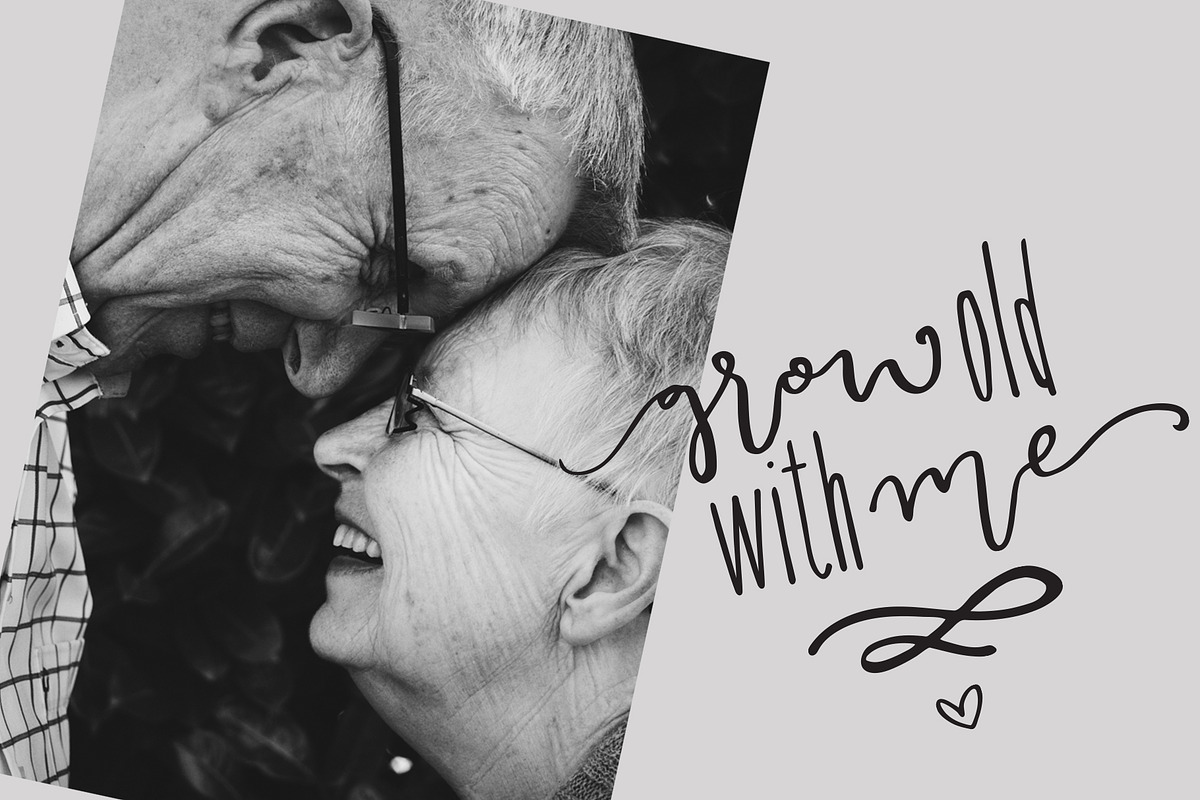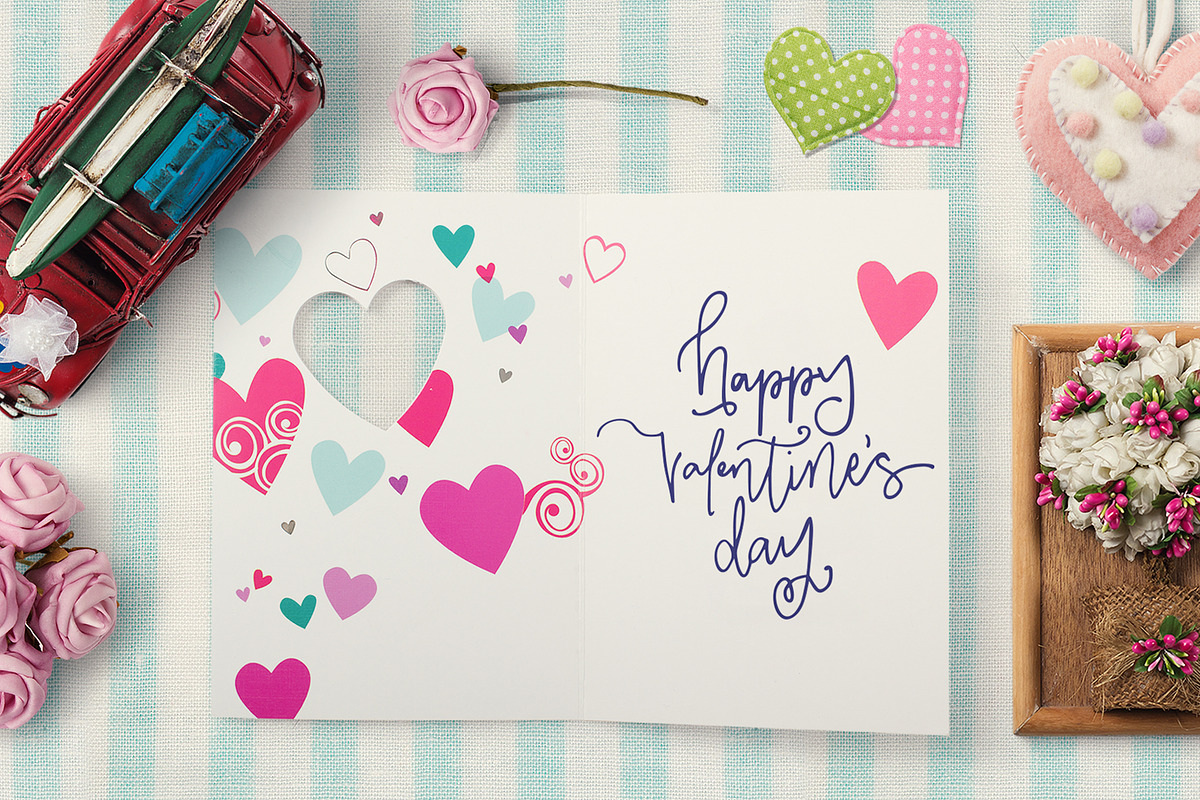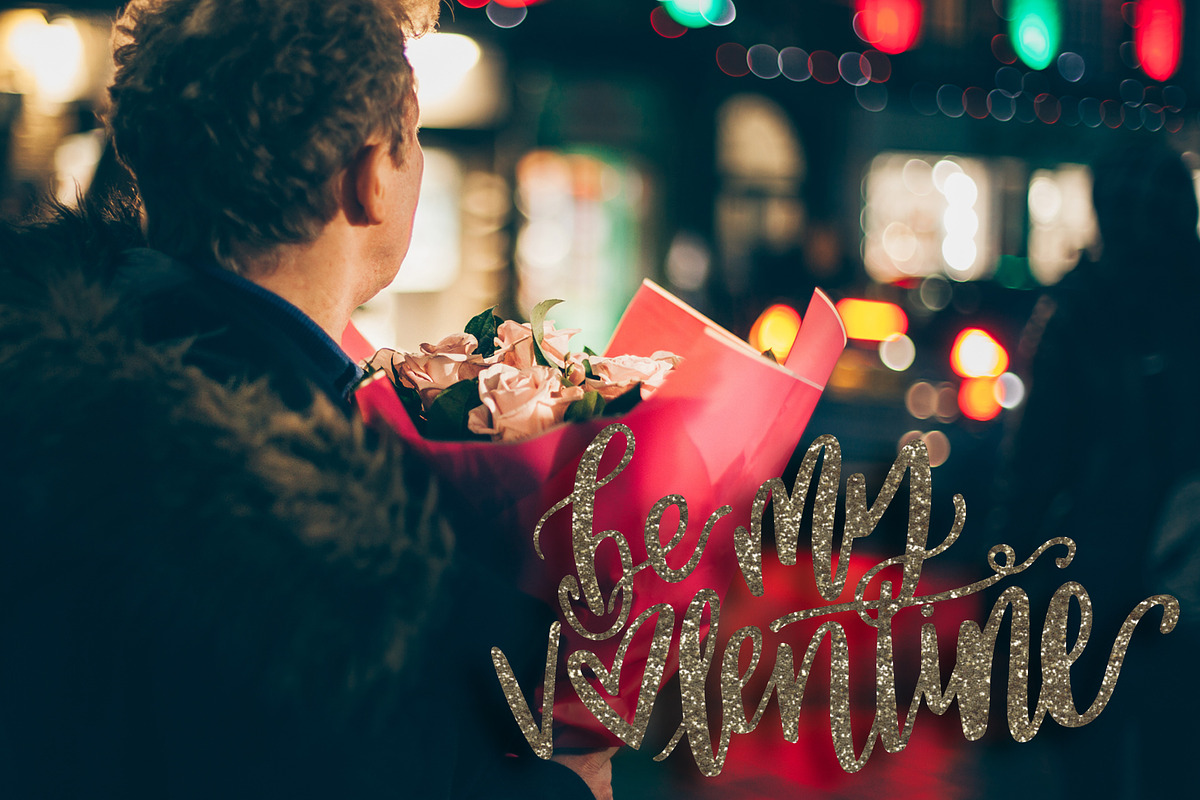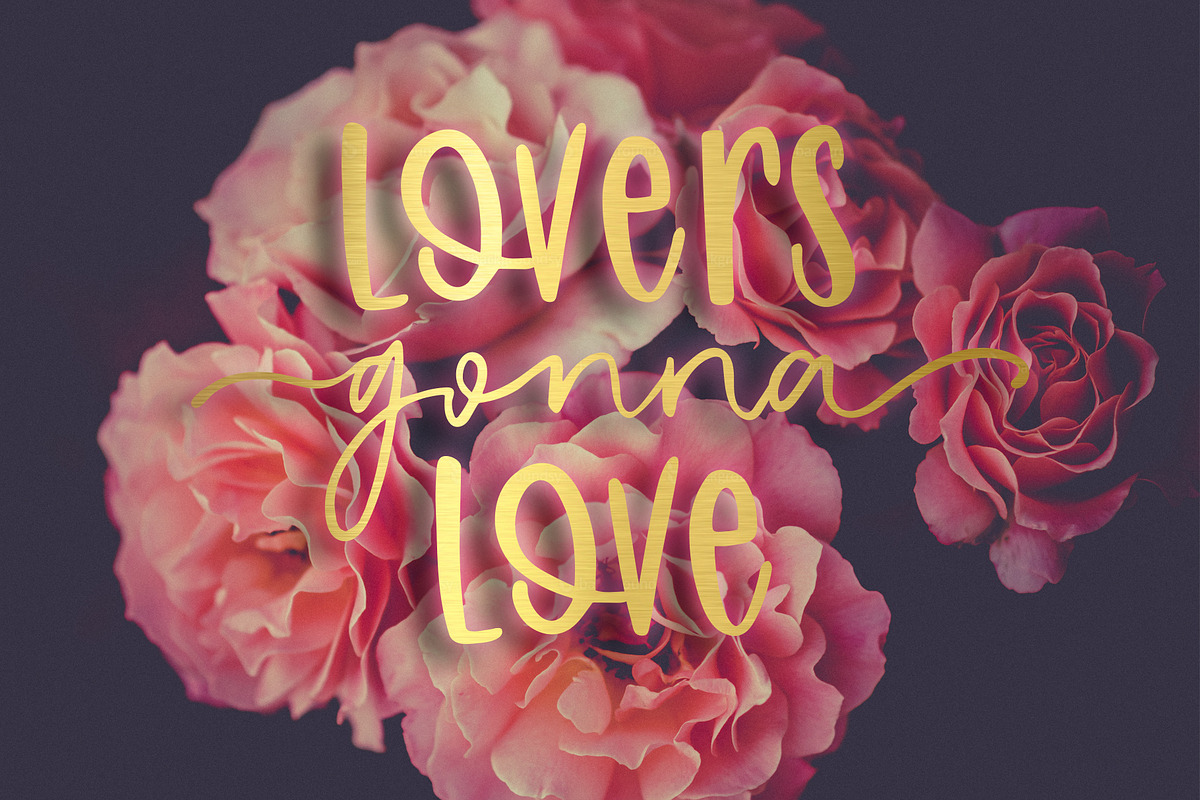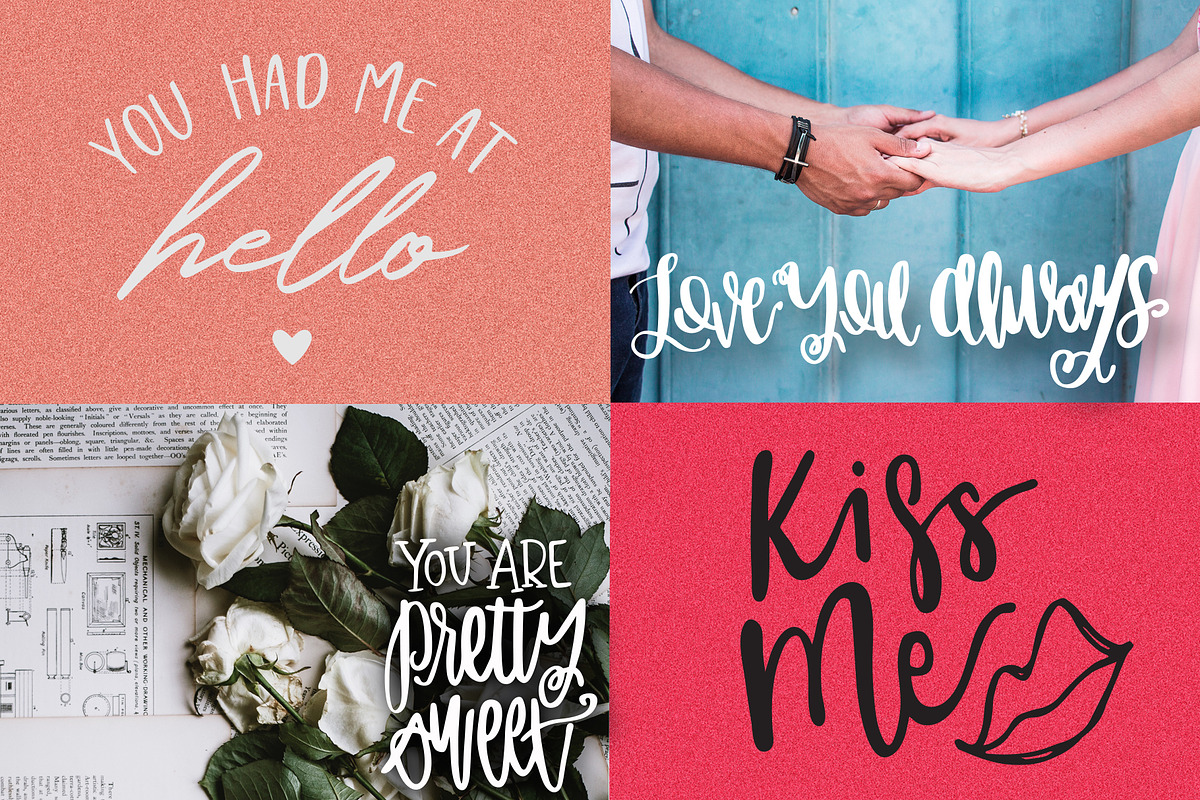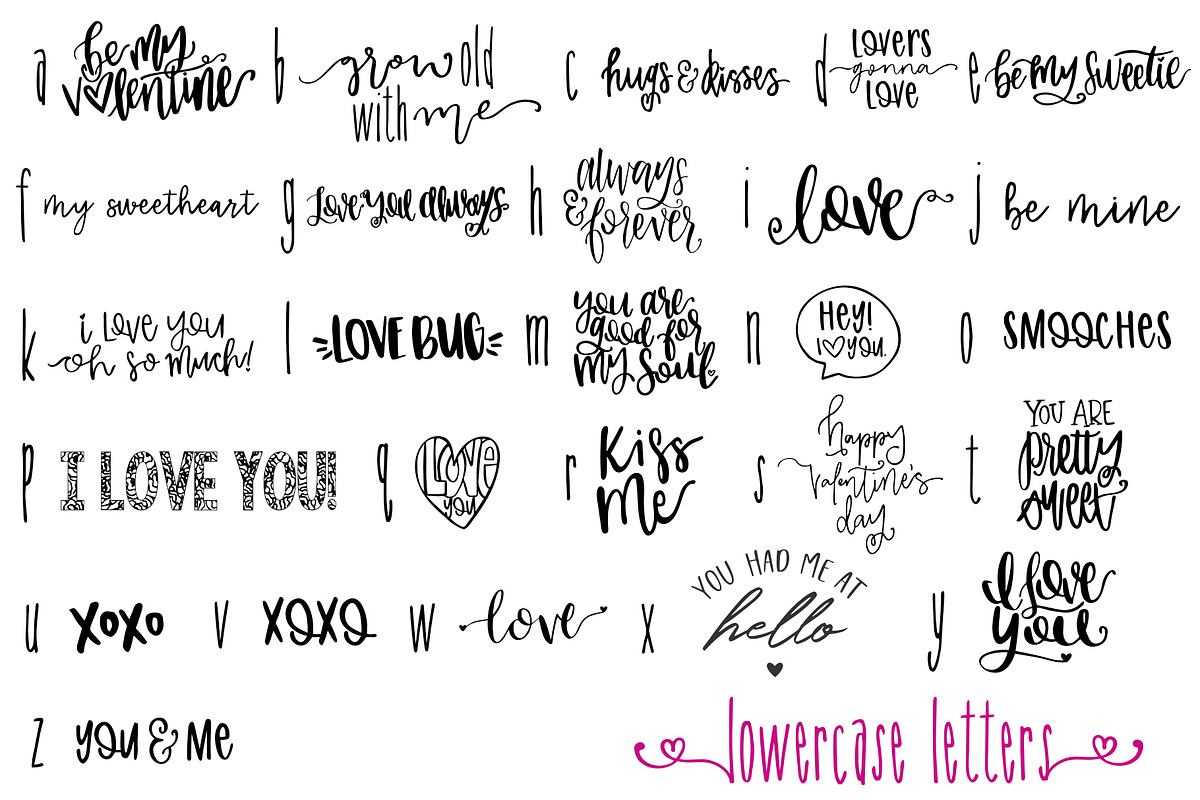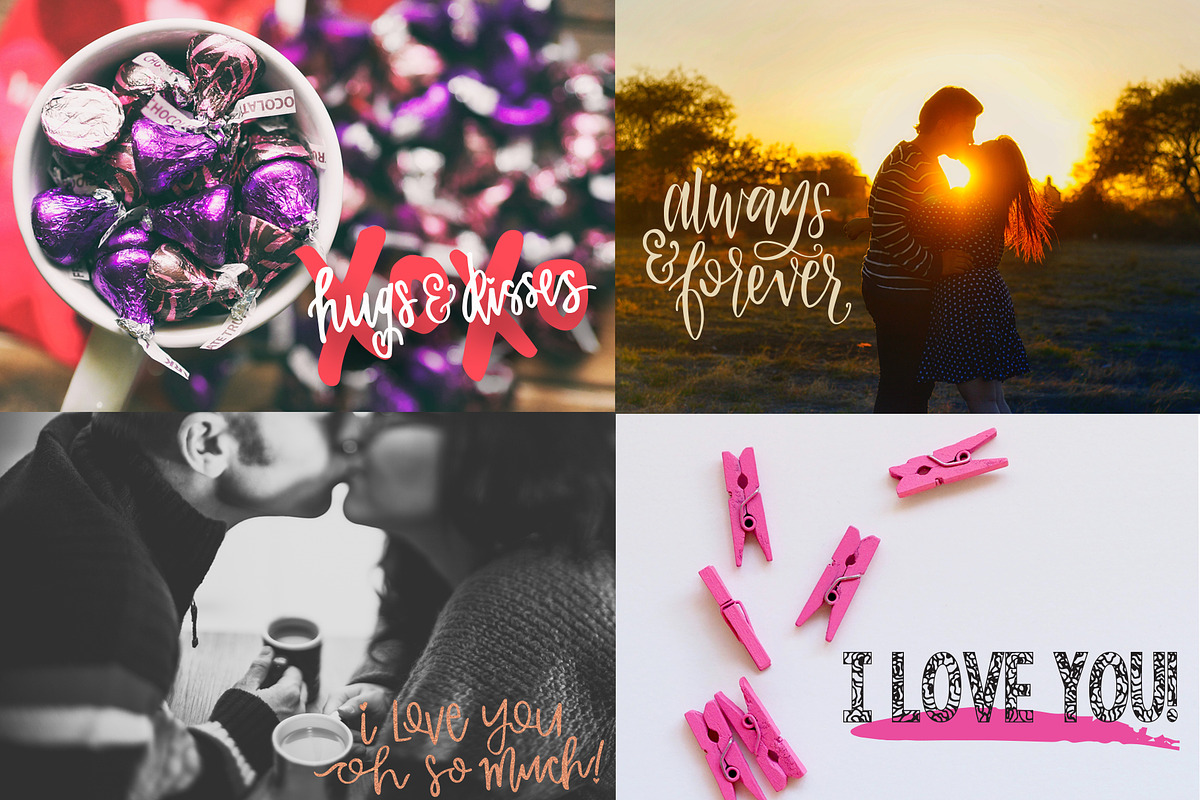
Valentine Symbol Font
• • • Valentine themed hand lettered quotes and doodles • • •
Beautiful hand lettered quotes and doodles to add to pictures, cards, social media, gift tags, merchandise, and more! Just type in a letter (uppercase & lowercase) or number and you will get a Valentine inspired doodle or quote!
- Just type in a letter (uppercase & lowercase) or number and you will get a Valentine inspired doodle or quote!